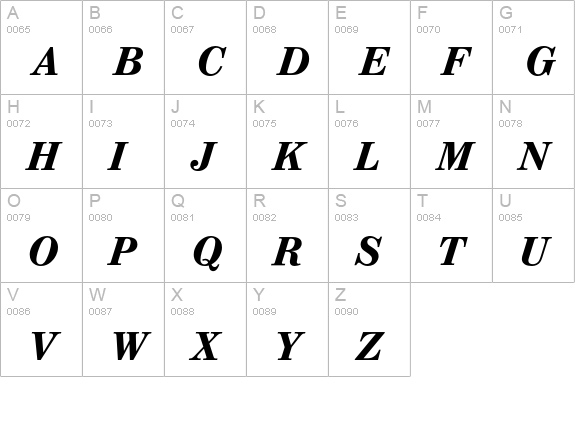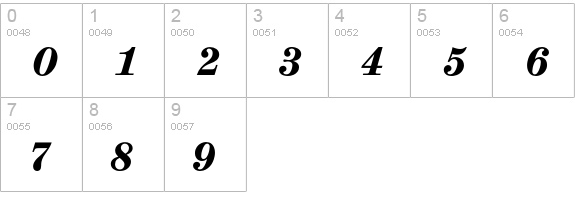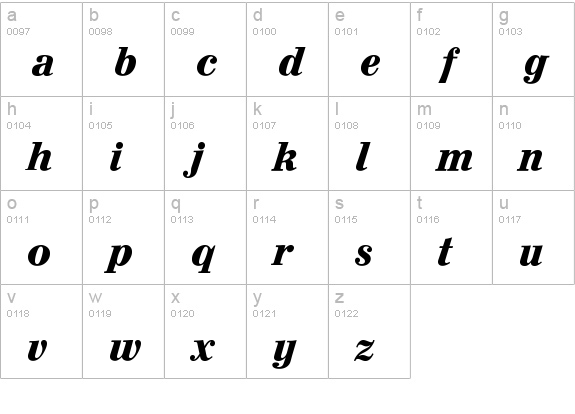
Augustea Bold Italic is a strong, high-contrast, italic variant in the Augustea typeface family \xE2\x80\x94 well suited to headlines, attention-grabbing titles, and strong calls-to-action.
Augustea Bold Italic font is a striking and elegant typeface that exudes sophistication and style. Its bold yet graceful curves and strong italicized angles make it a perfect choice for projects that demand attention and convey a sense of luxury. The Augustea Bold Italic font is versatile and can be used for various design purposes, from branding to editorial applications. What makes this font even more appealing is that it is available for free download at FontsMarket.com. This means you can easily access this premium font and elevate your designs without any cost. Don't miss the opportunity to enhance your projects with the Augustea Bold Italic font, now conveniently available for free at FontsMarket.com.